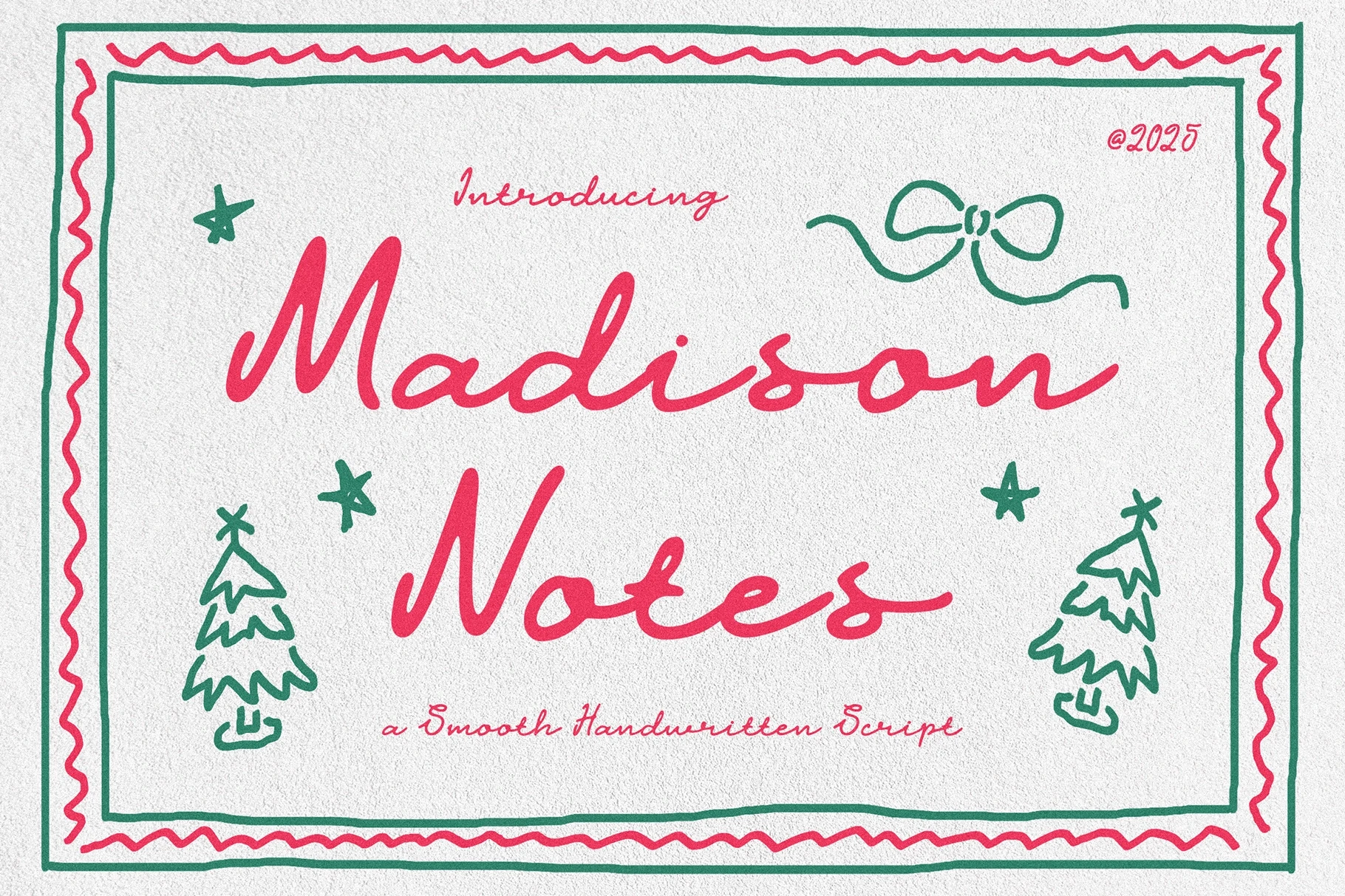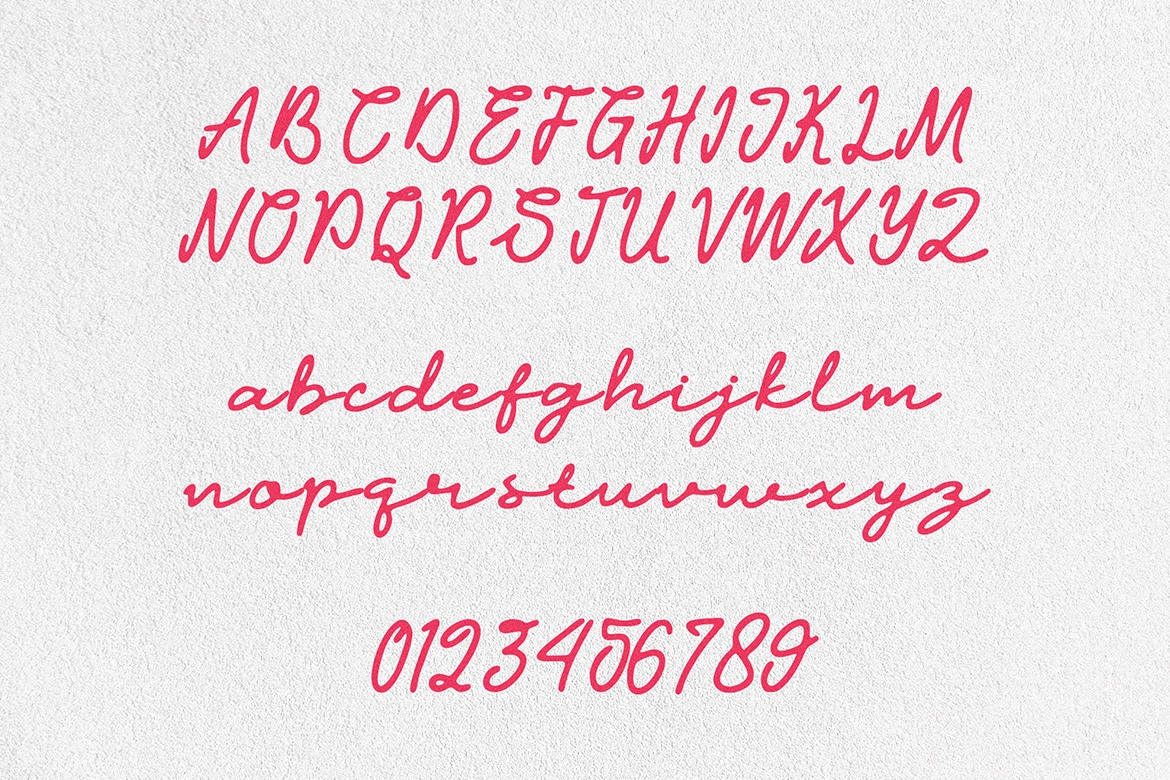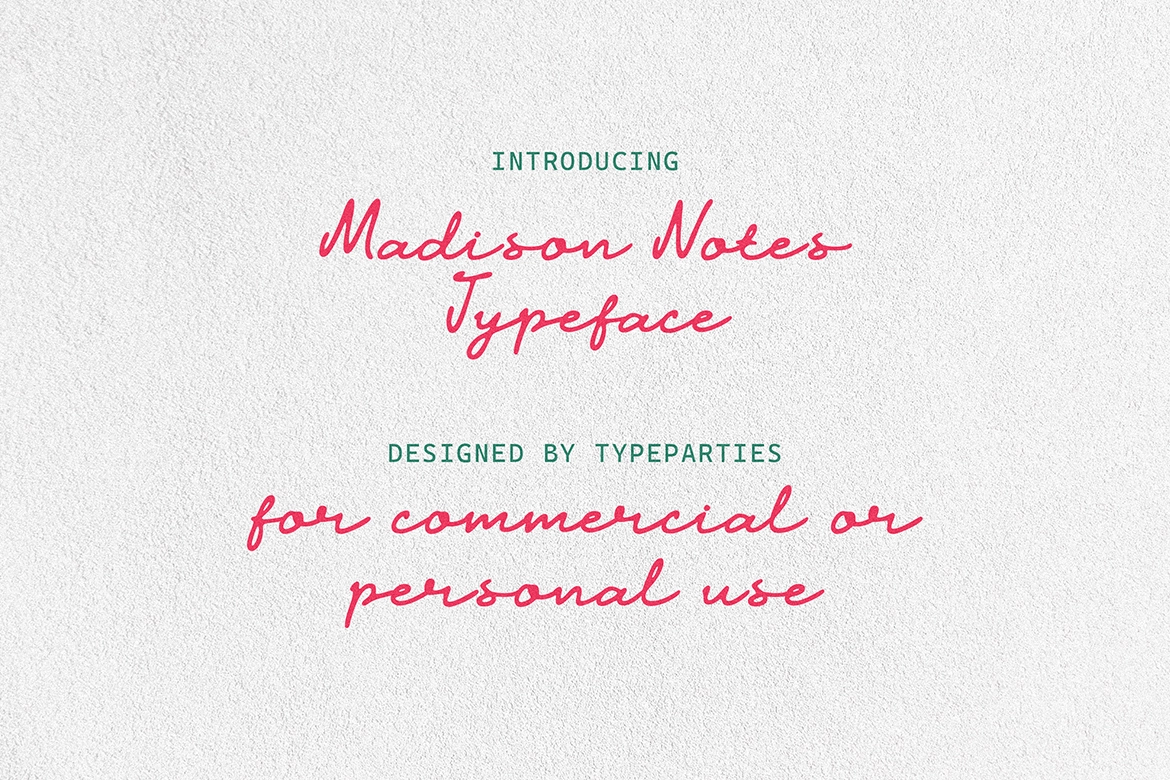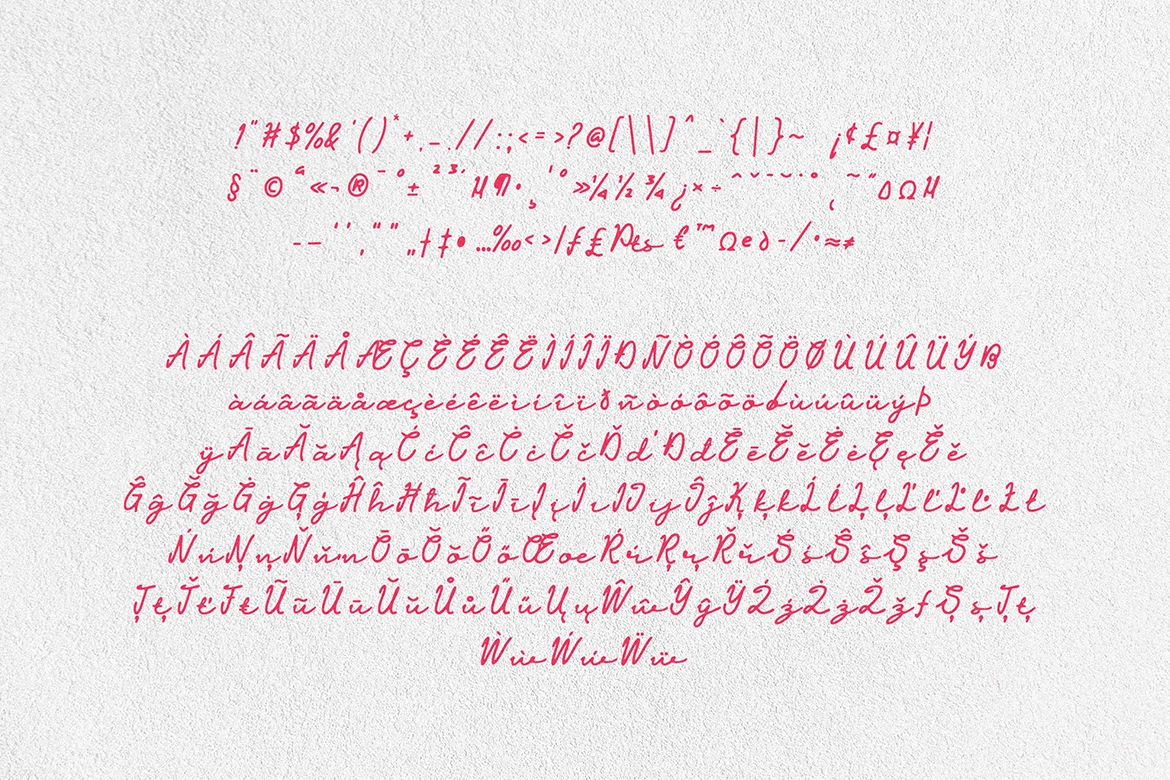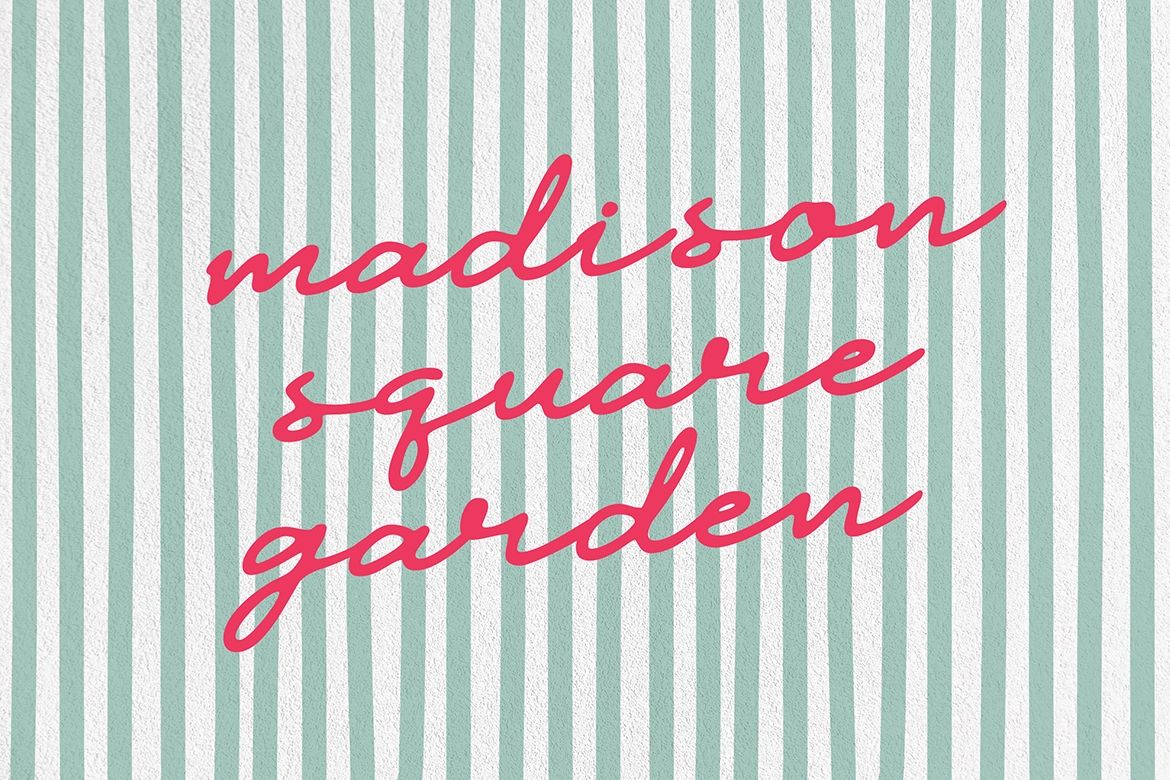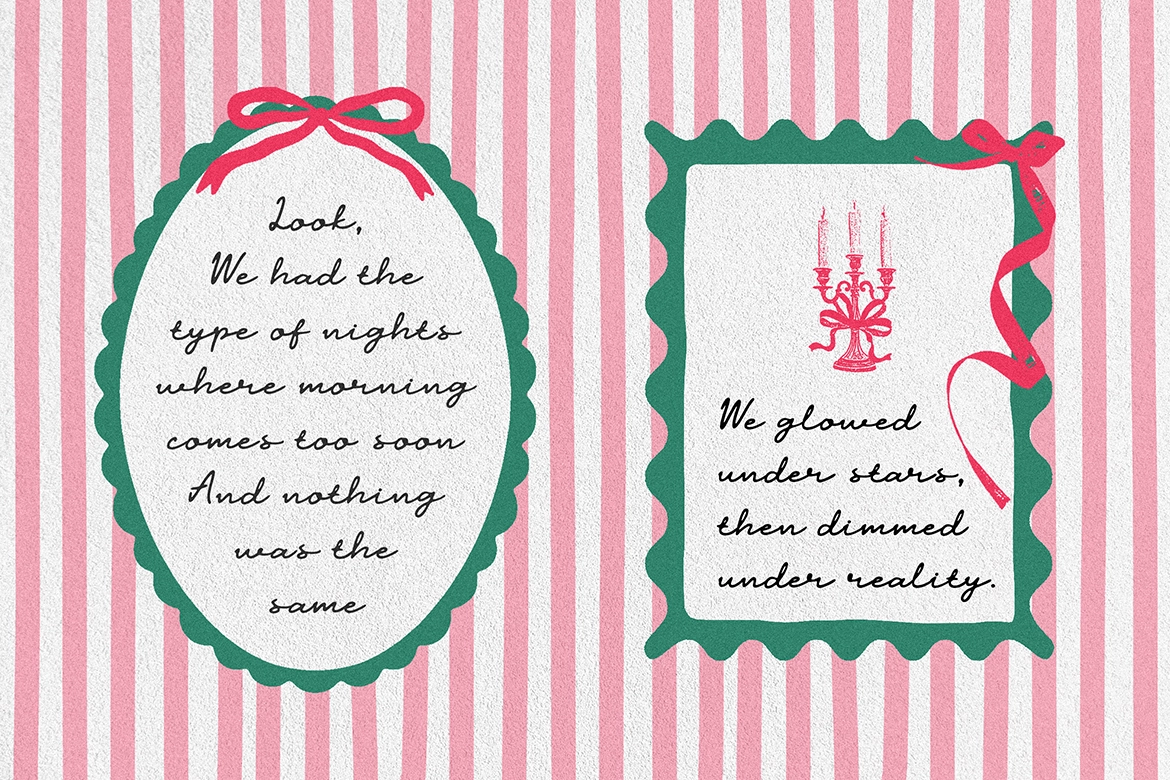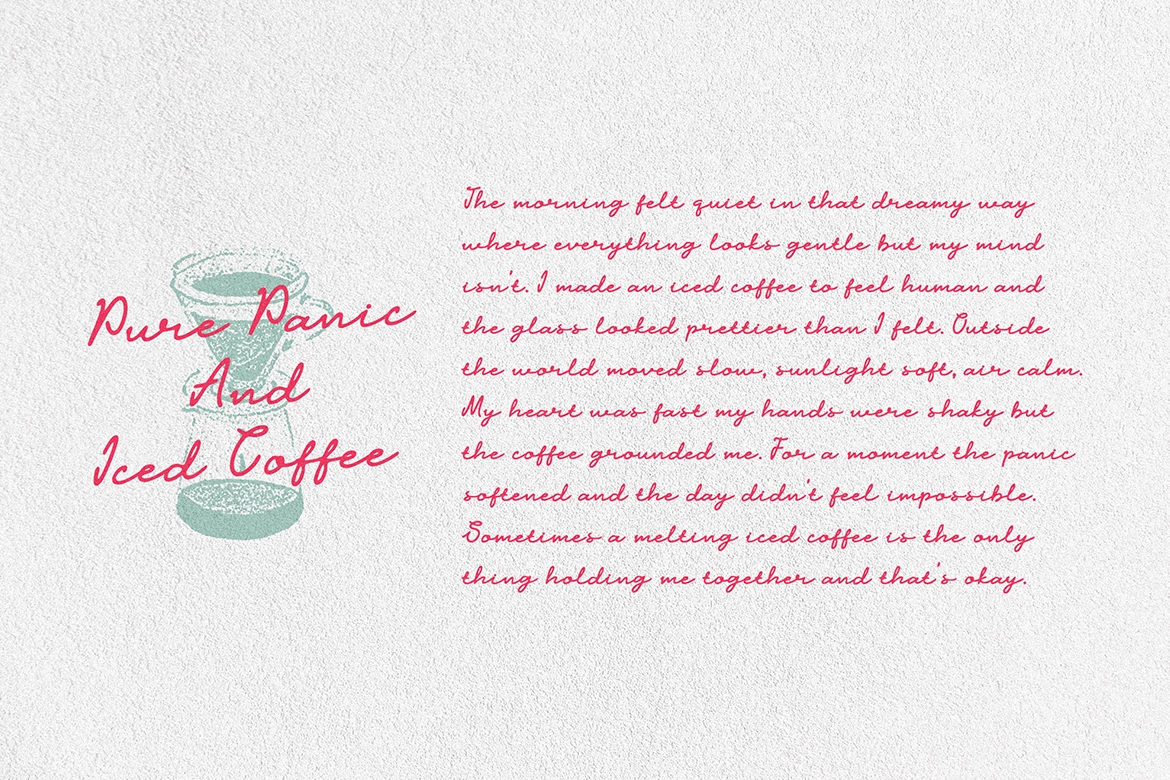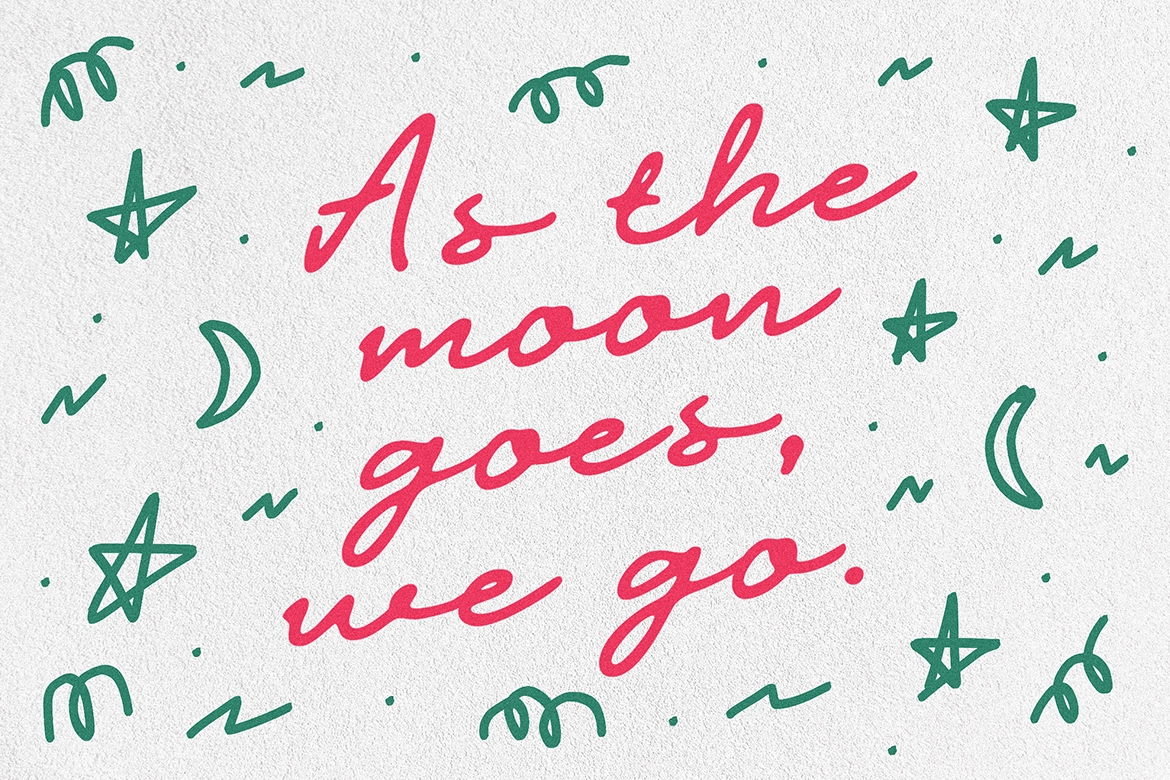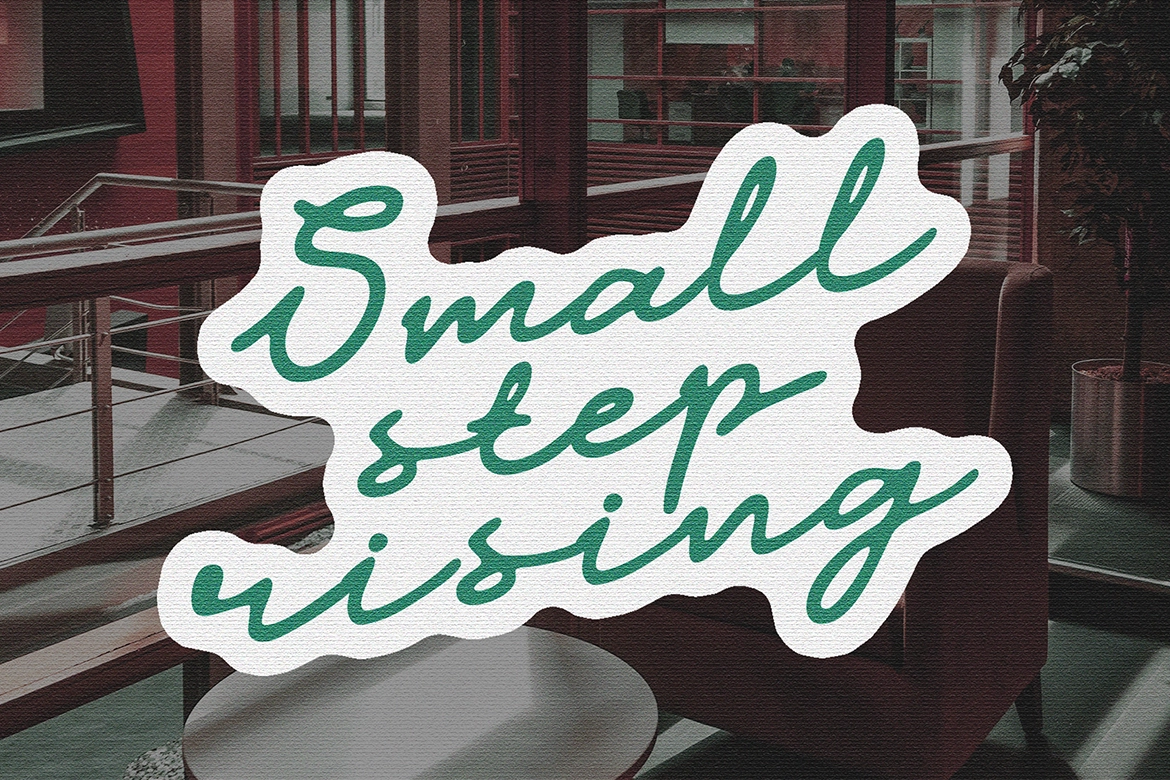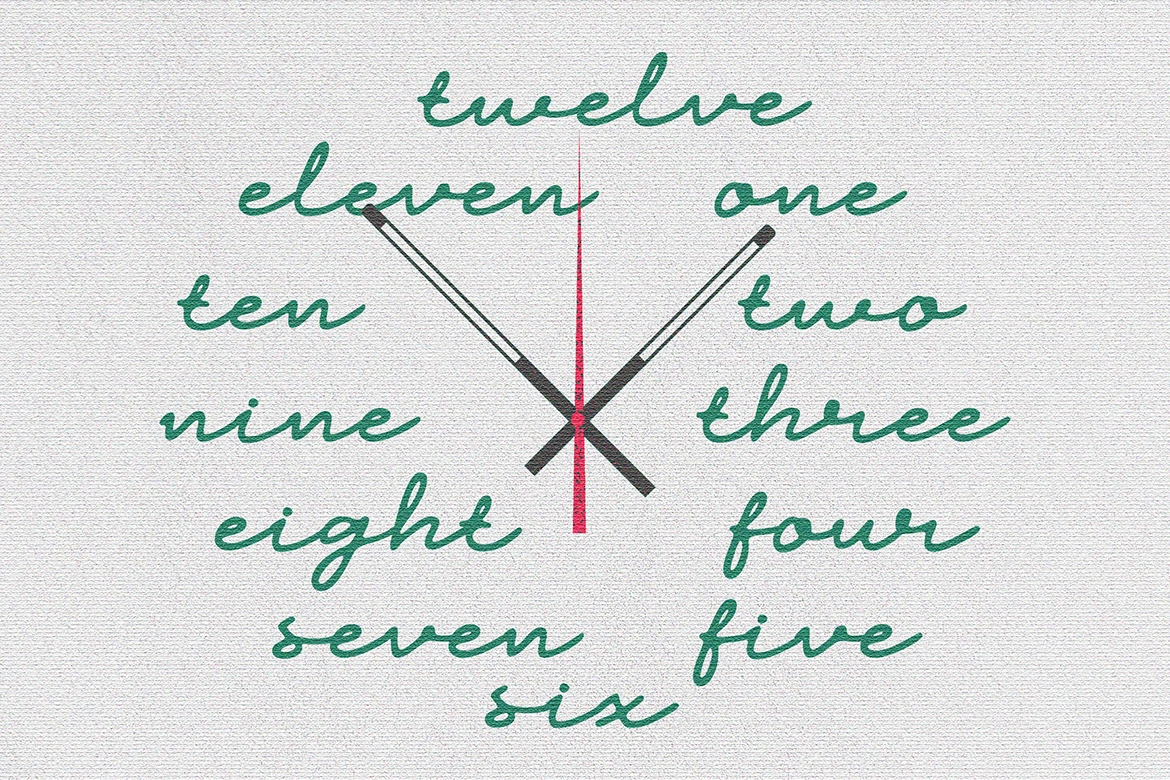
Madison Notes - Handwritten Script Font
ATP Madison Notes
This handwritten script has soft curves, relaxed rhythm, and a natural pen-made texture that reads personal without looking messy. The letterforms are smooth and friendly, with a casual flow suited to designs that need charm, clarity, and a bit of diary-page honesty.